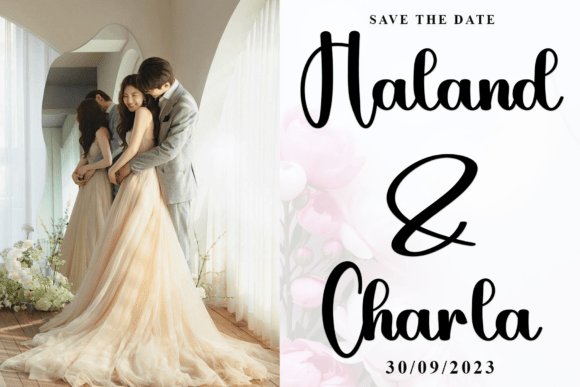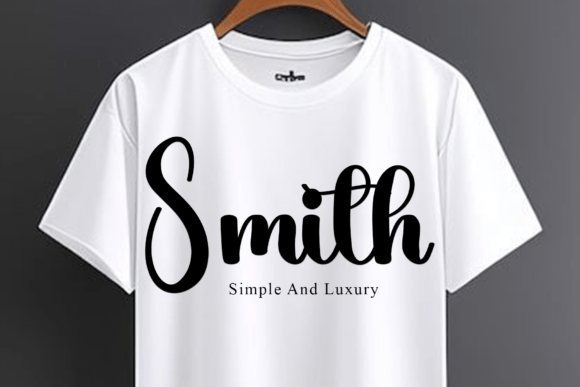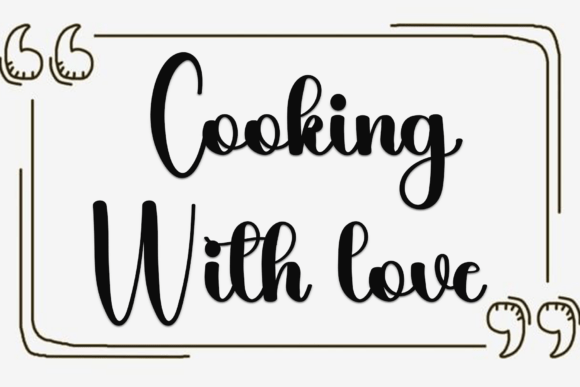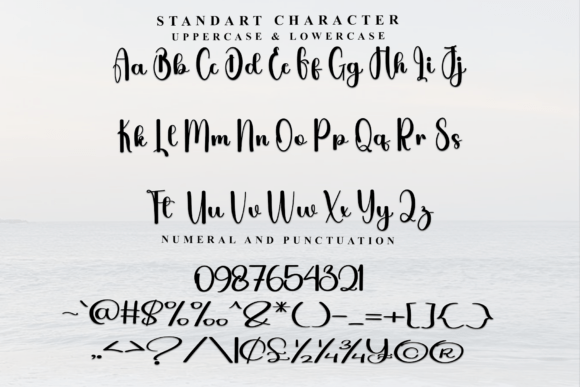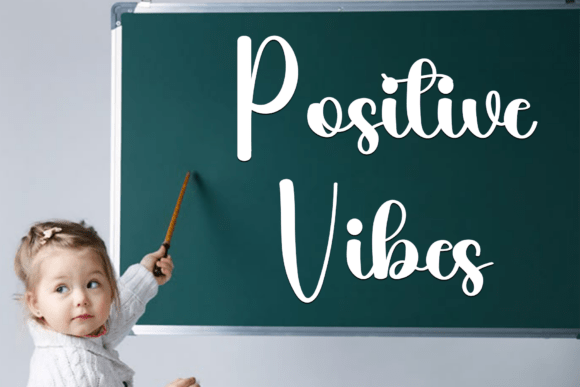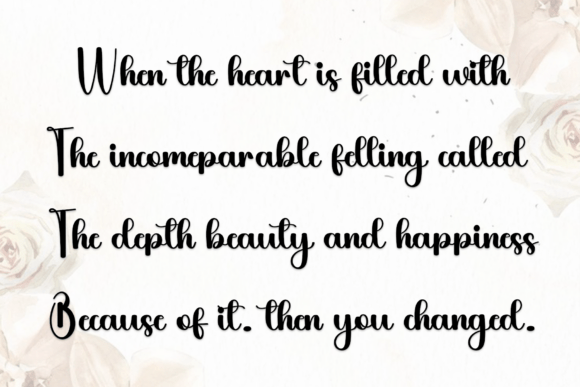
The Magic of Book Christmas Font: A Designer’s Delight
It’s the most wonderful time of the year, and as designers, we’re often on the lookout for that perfect font to capture the essence of the holiday season. I still remember the year I was working on a Christmas card project, and my client asked for a font that was “festive, yet elegant.” After hours of scouring the internet, I stumbled upon Book Christmas Font, and it instantly became the star of the show. In this article, we’ll dive into the world of Book Christmas Font, exploring its features, uses, and some helpful tips and tricks.
As a designer, I’m always on the lookout for fonts that can elevate my projects. Here’s what I love about Book Christmas Font:
• ✨ Festive and merry vibe that’s perfect for the holiday season
• ✅ Decorative elements and whimsical flair that add a touch of enchantment
• ✅ PUA encoded, making it easy to access all the amazing glyphs and ligatures
• ✅ Perfect for greeting cards, gift tags, and holiday-themed projects
While Book Christmas Font is a stunning addition to any design project, there are a few quirks to keep in mind:
• ⚠️ Some of the more intricate glyphs might require a bit of tweaking to get just right
• 🤔 Limited use outside of holiday-themed projects (but that’s not necessarily a bad thing!)
The Story Behind Book Christmas Font
While the origins of Book Christmas Font are shrouded in mystery, it’s clear that the designer was inspired by the magic of the holiday season. Imagine a snowy winter evening, surrounded by twinkling lights and the warm glow of a crackling fire. That’s the feeling that Book Christmas Font aims to capture.
Is Book Christmas Font suitable for body text? While Book Christmas Font is stunning, it’s best used for headlines, titles, and short paragraphs. For body text, you may want to opt for a clearer, more legible font.